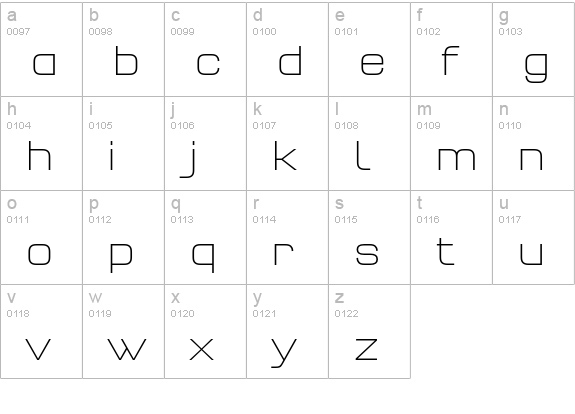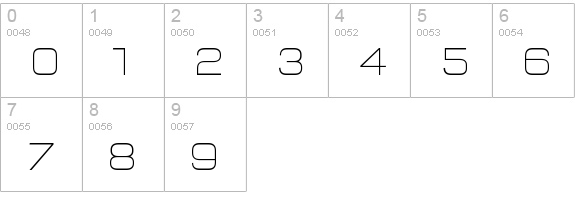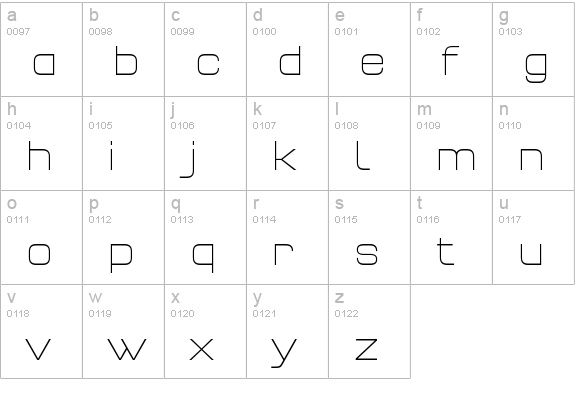
QTypeSquare-ExtraLight Font Details
QTypeSquare-ExtraLight is an airy, ultra-refined variant in the QTypeSquare typeface family \xE2\x80\x94 well suited to minimalist headlines and refined display use.
QTypeSquare-ExtraLight is a stunning and elegant font that will bring a touch of sophistication to any design project. Its clean and minimalist design makes it perfect for a wide range of applications, from branding and logos to headlines and body text. This font features a unique square-shaped design that sets it apart from other fonts. The perfectly balanced letterforms and gentle curves create a graceful and modern look that is both pleasing to the eye and easy to read. QTypeSquare-ExtraLight is a versatile font that can be used in a variety of design styles. Whether you're creating a sleek and contemporary website or a timeless and classic print design, this font will add a touch of elegance and professionalism. One of the best things about QTypeSquare-ExtraLight is that it is available for free download at FontsMarket.com. This means that you can easily access this amazing font and incorporate it into your projects without any cost. It's an incredible opportunity to enhance your designs with a high-quality font that won't break the bank. So, why wait? Download QTypeSquare-ExtraLight today and elevate your design projects to a whole new level. With its stunning aesthetics and freely available nature, this font is a must-have for any designer or creative professional. Experience the beauty and versatility of QTypeSquare-ExtraLight and see your designs come to life.